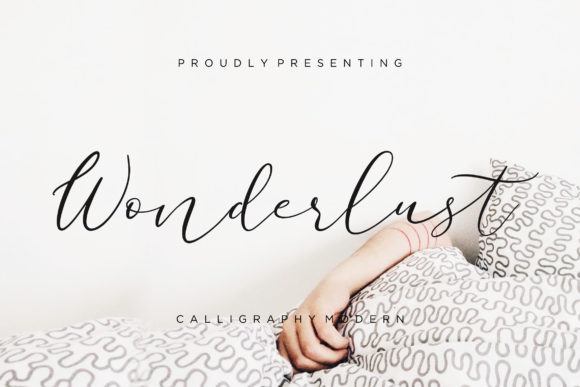
Wonderlust Font
Behold, where whimsical dreams entwine with the echoes of magic, Wonderlust, an enchanting script font family, awaits your creative touch. Dive into a realm of artistry, where each letter dances with grace and elegance, eager to adorn your designs with a touch of wonder.
Crafted with the utmost attention to detail, Wonderlust is a symphony of aesthetics, combining the timeless beauty of calligraphy with a modern, captivating twist. Its delicate strokes and flowing curves exude a charm that is both inviting and captivating, drawing your audience into a world of elegance and sophistication.
With Wonderlust, the boundaries of creativity dissolve, allowing you to paint your words with hues of allure and enchantment. Whether you're weaving tales of love, crafting invitations that whisper of romance, or conjuring captivating logos that leave an indelible mark, Wonderlust becomes your trusted companion, transforming your creative visions into enchanting realities.
Created by the masterminds at Creatype Studio, Wonderlust is an heirloom of digital artistry, a font that exudes both timeless beauty and contemporary allure. It's not merely a collection of letters; it's a gateway to a world of imagination, where stories come alive, and dreams find their voice.
Whether you're a seasoned designer or just starting your creative journey, Wonderlust is your muse, guiding you through the labyrinth of artistic expression. Its intuitive nature makes it a joy to use, inviting you to explore the depths of your imagination and create designs that captivate and inspire.
So, embark on an artistic odyssey with Wonderlust, a script font family that transcends the boundaries of ordinary. Let its magic infuse your designs with an ethereal glow, leaving your audience spellbound and eager for more.